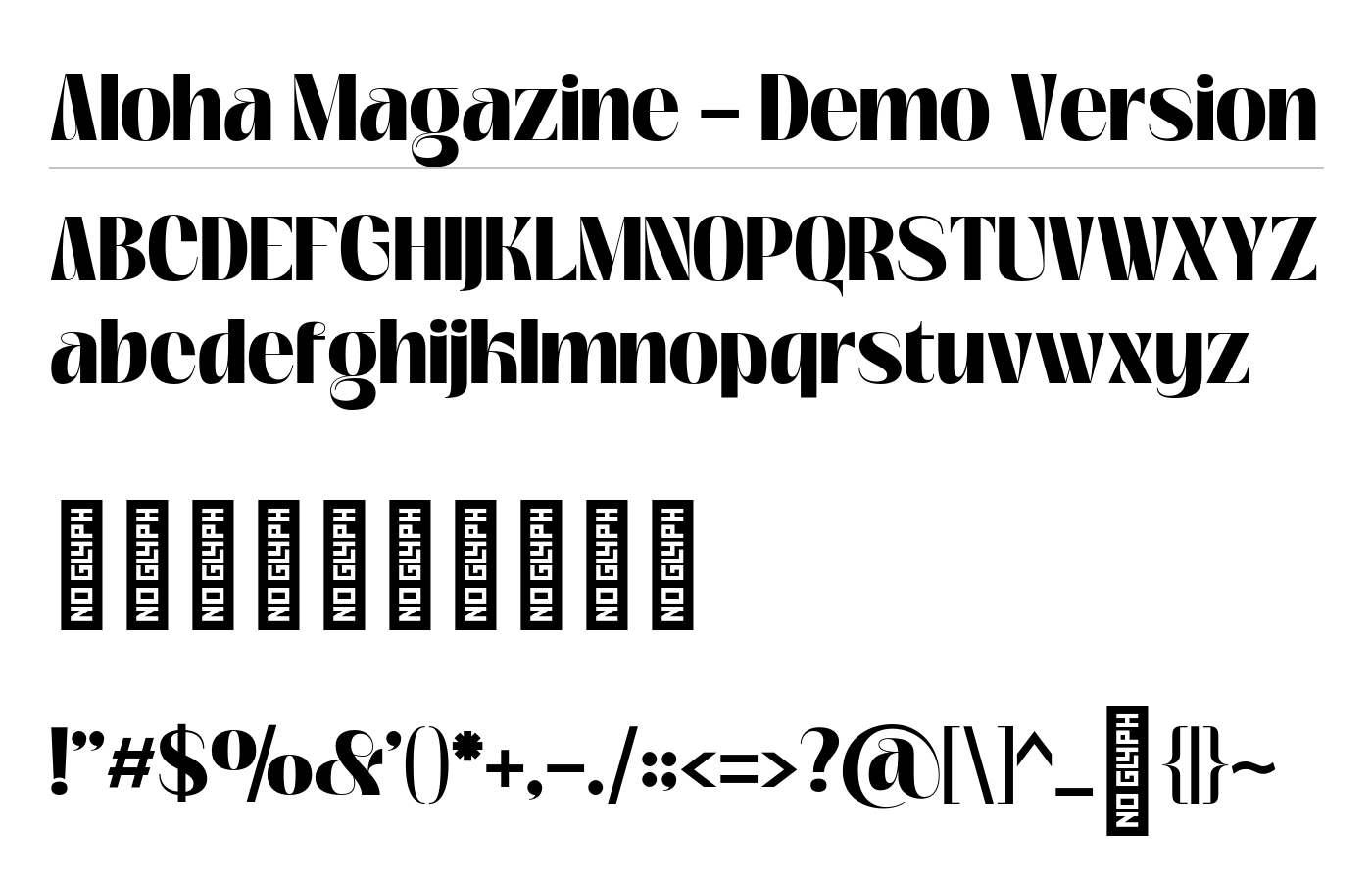
Aloha Magazine is a bold serif font with a modern, high-contrast style characterized by sharp, elegant strokes and unique, decorative details like single-story 'a' and distinctive tail shapes. Its strong presence and sophisticated flair make it ideal for striking headlines, luxury branding, and editorial design where a dramatic and stylish impact is desired. This font works best in large sizes, perfectly suited for fashion magazines, logos, and posters that seek to convey confidence and elegance.
Aloha Magazine - Demo Version Font
About Aloha Magazine - Demo Version Font